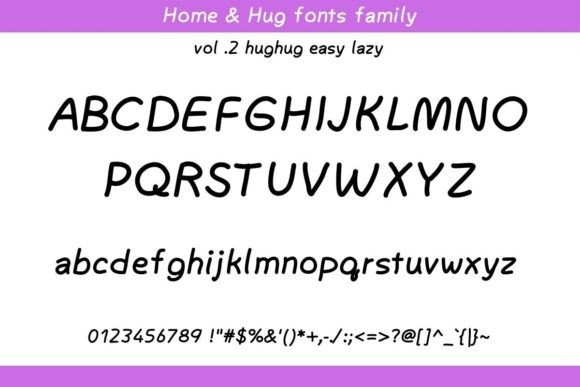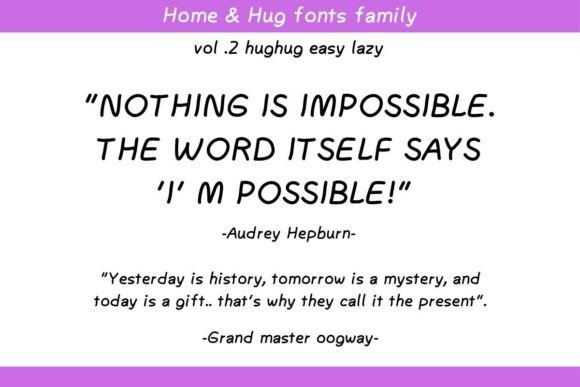
Find Your Inner Calm with the Perfect Font
As you sit in your cozy studio, surrounded by half-finished projects and scattered inspiration boards, you finally find the perfect moment to create. The morning sun pours in through the window, casting a warm glow on your workspace. Your cup of coffee is still steaming, and you feel invigorated, ready to tackle the day. This is the moment when the right font can make all the difference.
Enter the “Hughug easy lazy” font, a hand-sketched composition of True Type and Open Type fonts that embodies the essence of tranquility and ease. Designed to evoke feelings of relaxation and joy, this font is the perfect companion for your creative journey. For designers, “Hughug easy lazy” font is a valuable addition to their toolkit, allowing them to communicate not just words, but also emotions and moods.
Hughug Easy Lazy Font Key Features
- Font Family: Hughug Easy Lazy Font is a unique, hand-drawn font family with 6 styles, including Regular, Italic, Bold, Bold Italic, and two additional ornate styles.
- Unique Characteristics: Features a playful, handwritten feel with subtle irregularities and organic shapes, making it perfect for creative and design-focused projects.
- Character Set: Includes a comprehensive set of characters, including Latin, Cyrillic, and Greek alphabets, as well as punctuation and symbols.
Hughug Easy Lazy Font Review
Overall, I think the Hughug Easy Lazy Font is a great addition to any designer’s toolkit. Here are some of the things I like about it:
- ✨ Unique aesthetic: The font has a distinct, laid-back vibe that’s perfect for casual projects or brands that want to convey a relaxed, approachable atmosphere.
- ✨ Versatility: Despite its laid-back feel, the font is surprisingly versatile and works well in a range of contexts, from digital signage to print materials.
- ✨ Easy to read: The font is well-designed and easy to read, even at smaller sizes, which is a must for any font.
- ⚠️ Limited language support: The font only includes a limited set of languages, which may be a problem for designers working on international projects.
- ⚠️ Not ideal for formal or professional contexts: While the font is great for casual projects, it may not be the best choice for formal or professional contexts where a more traditional, serious font is required.
Overall, I think the Hughug Easy Lazy Font is a great choice for designers who want to add some personality to their projects. Just be aware of its limitations and use it accordingly.
Tips for Getting the Most Out of Hughug Easy Lazy Font
For best results, use Hughug Easy Lazy Font in combination with a bold or italic font to create a visually appealing contrast.
Experiment with different font sizes and styles to find the perfect balance for your design.